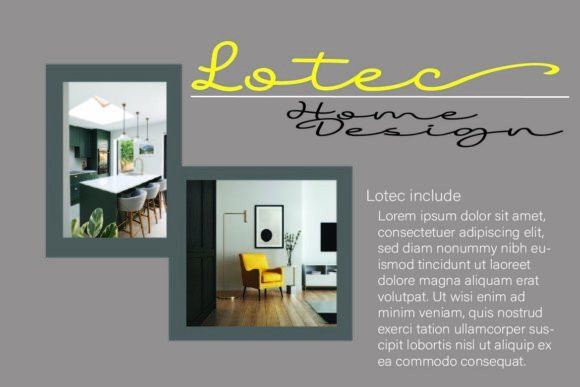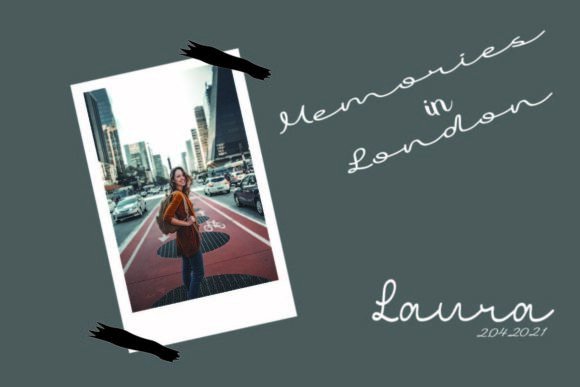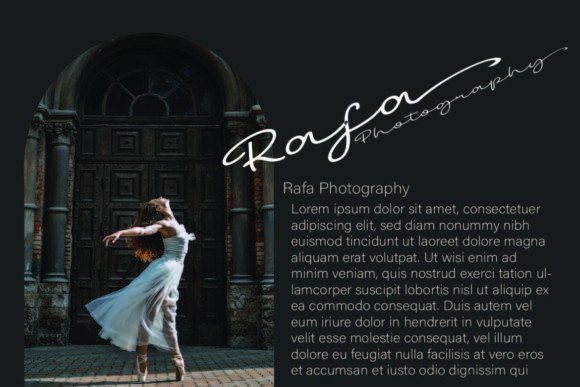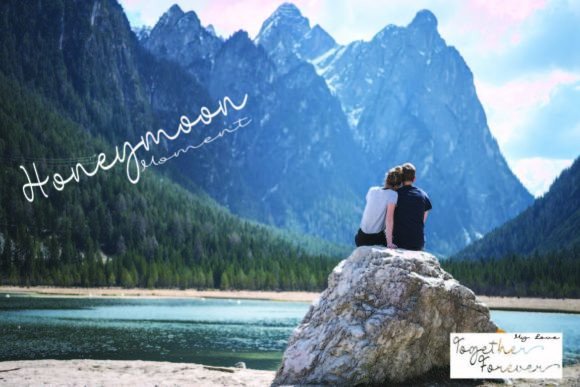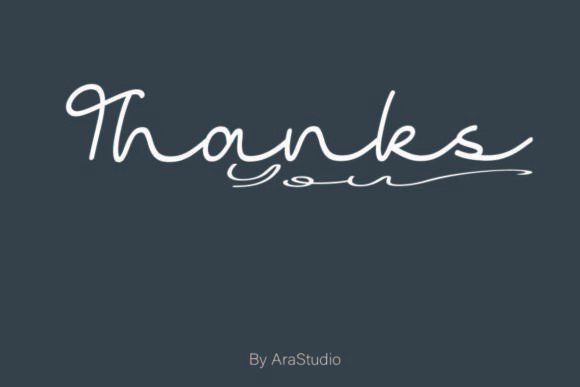
Introduction to Melaney Font
Melaney is a modern handwritten font perfect for wedding invitations, calligraphy logos for branding, elegant websites, card invitations, advertising, social media posts, and anything else your heart desires.
Key Features of Melaney Font
Why Choose Melaney Font?
Melaney Font offers exceptional quality and versatility, making it a valuable addition to your design toolkit. Whether you’re creating for personal projects or commercial use, Melaney Font delivers professional results.